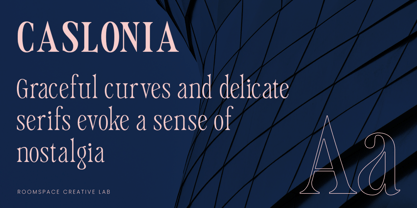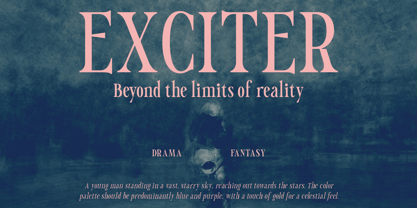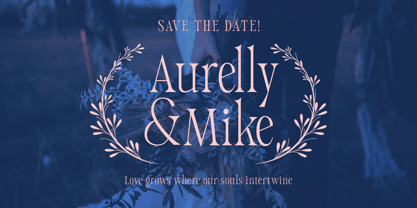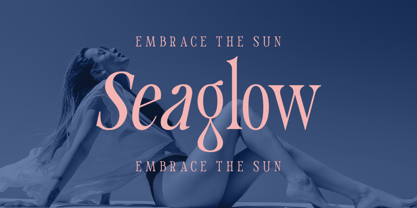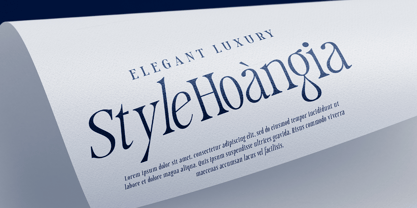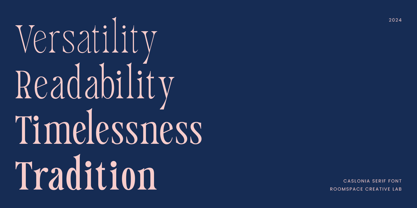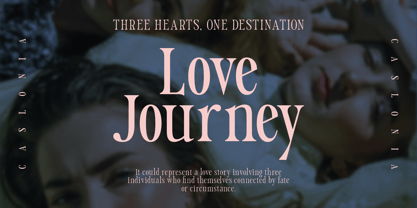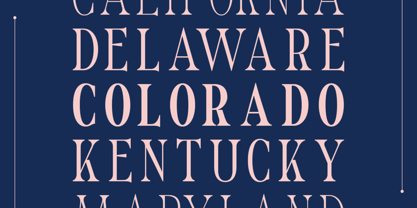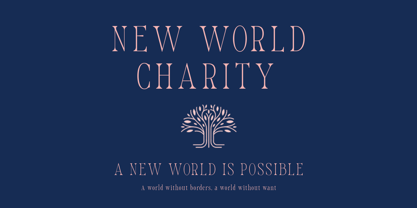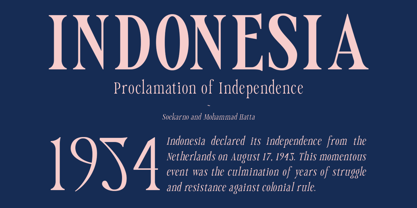
Caslonia
The Caslonia Font Family was designed by Bakhrudin Ja'far and published by Jafar07. Caslonia contains 7 styles and family package options. More about this family
Caslonia is a meticulously crafted serif typeface inspired by the timeless elegance of classic typography. Designed with a touch of modern sophistication, this font offers a versatile range of 14 styles, including 7 distinct weights and their matching italics, from Thin to Bold. Caslonia's slightly tall and refined structure makes it an ideal choice for logo design, branding, and luxury projects that demand a touch of class and elegance.
Perfect for those seeking a blend of vintage charm and modern aesthetics, Caslonia provides designers with a toolkit suitable for various design needs, whether you're creating an elegant logo, crafting luxury invitations, or adding a touch of sophistication to editorial layouts. This popular typeface is also an excellent choice for projects that require a stylish and elegant look.